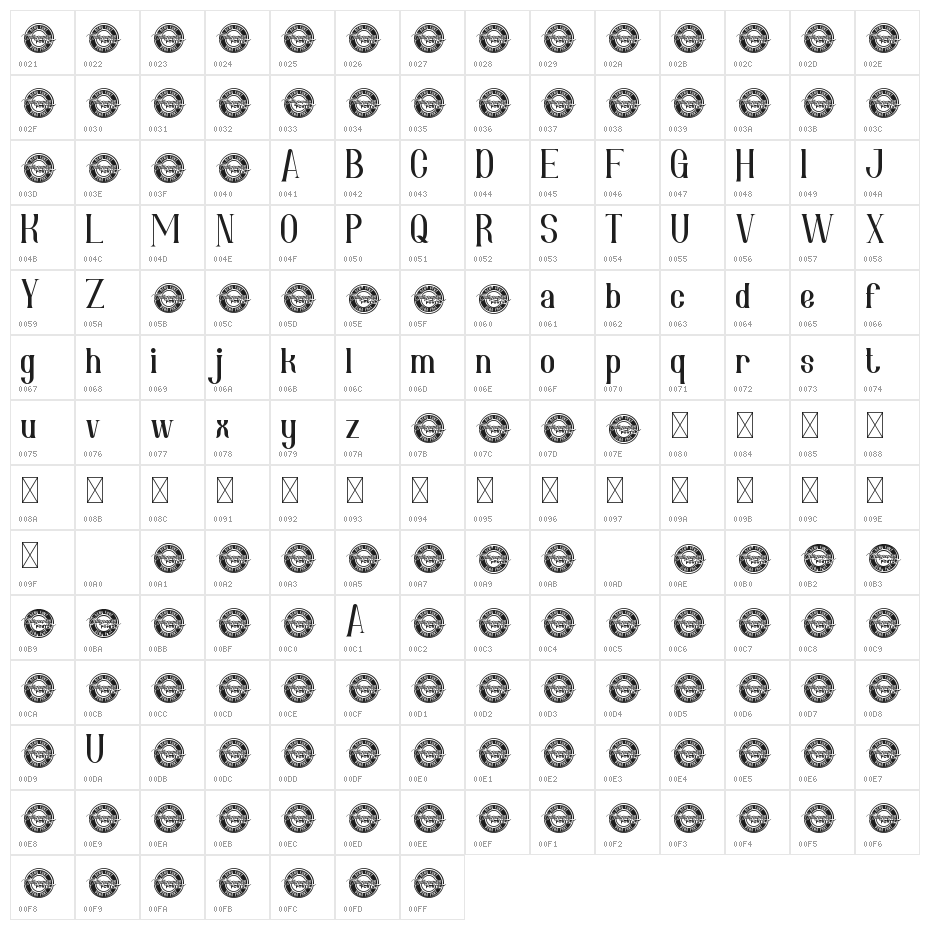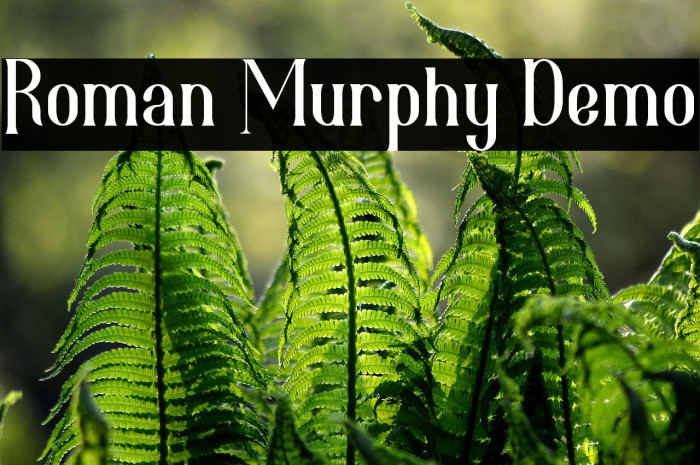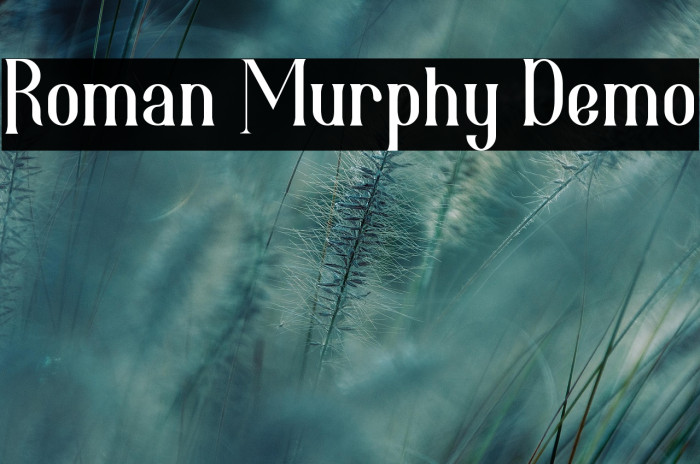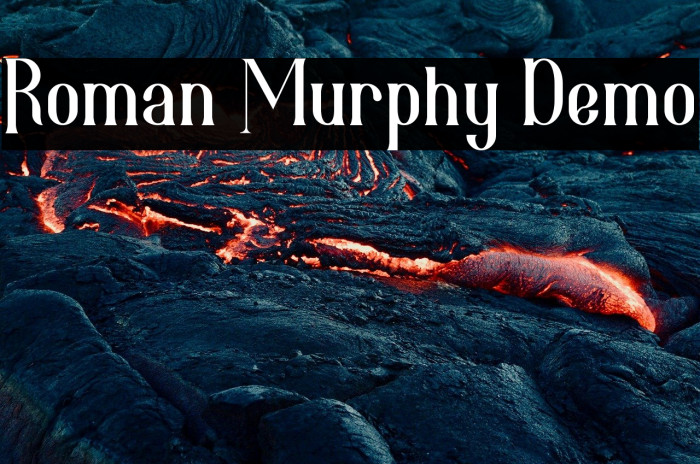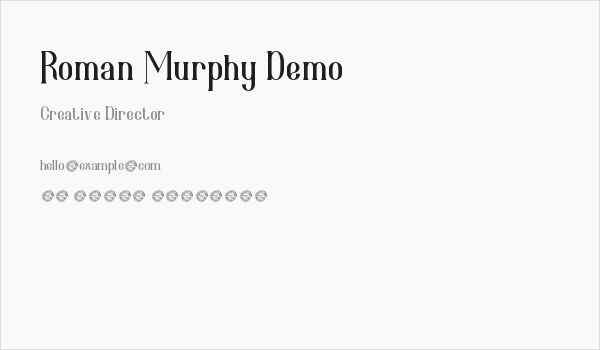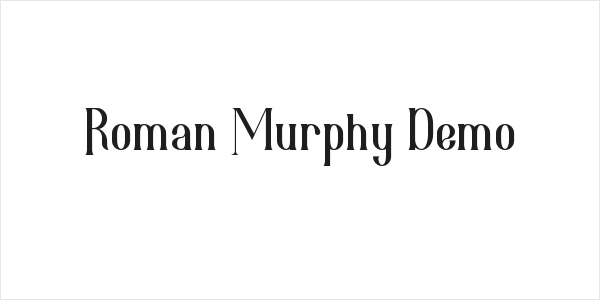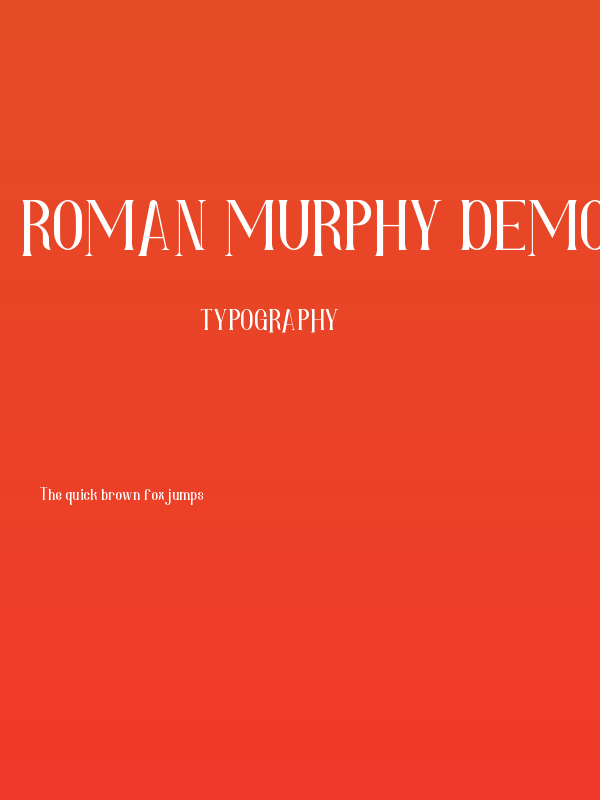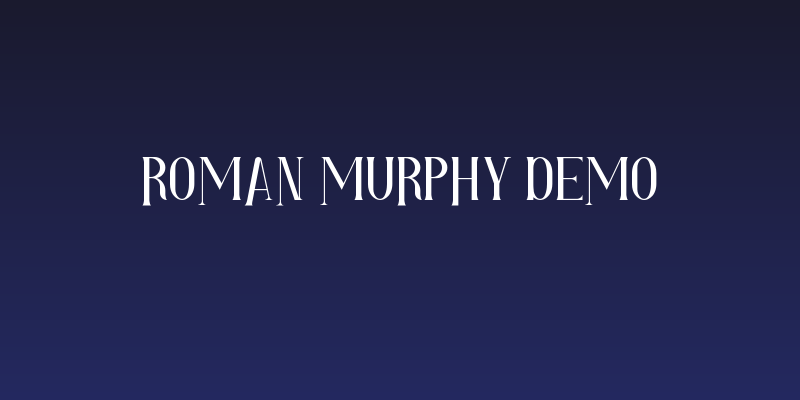
Roman Murphy Demo Font
Roman Murphy Demo Description
This font features a unique blend of modern and vintage styles, characterized by its high contrast between thick and thin strokes. The uppercase letters exhibit a distinct flair with elongated serifs and a slightly condensed form, giving them a sophisticated and elegant appearance. The lowercase letters maintain a consistent style, with rounded edges and a playful yet refined look. The numerals are bold and clear, ensuring readability. Special characters are designed with the same attention to detail, making them suitable for various design needs. Overall, this font exudes a sense of elegance and creativity, making it ideal for projects that require a touch of class and distinction.
| Overall Style | Modern Vintage |
| Proposed Projects | Ideal for branding, editorial design, invitations, and luxury product packaging. |